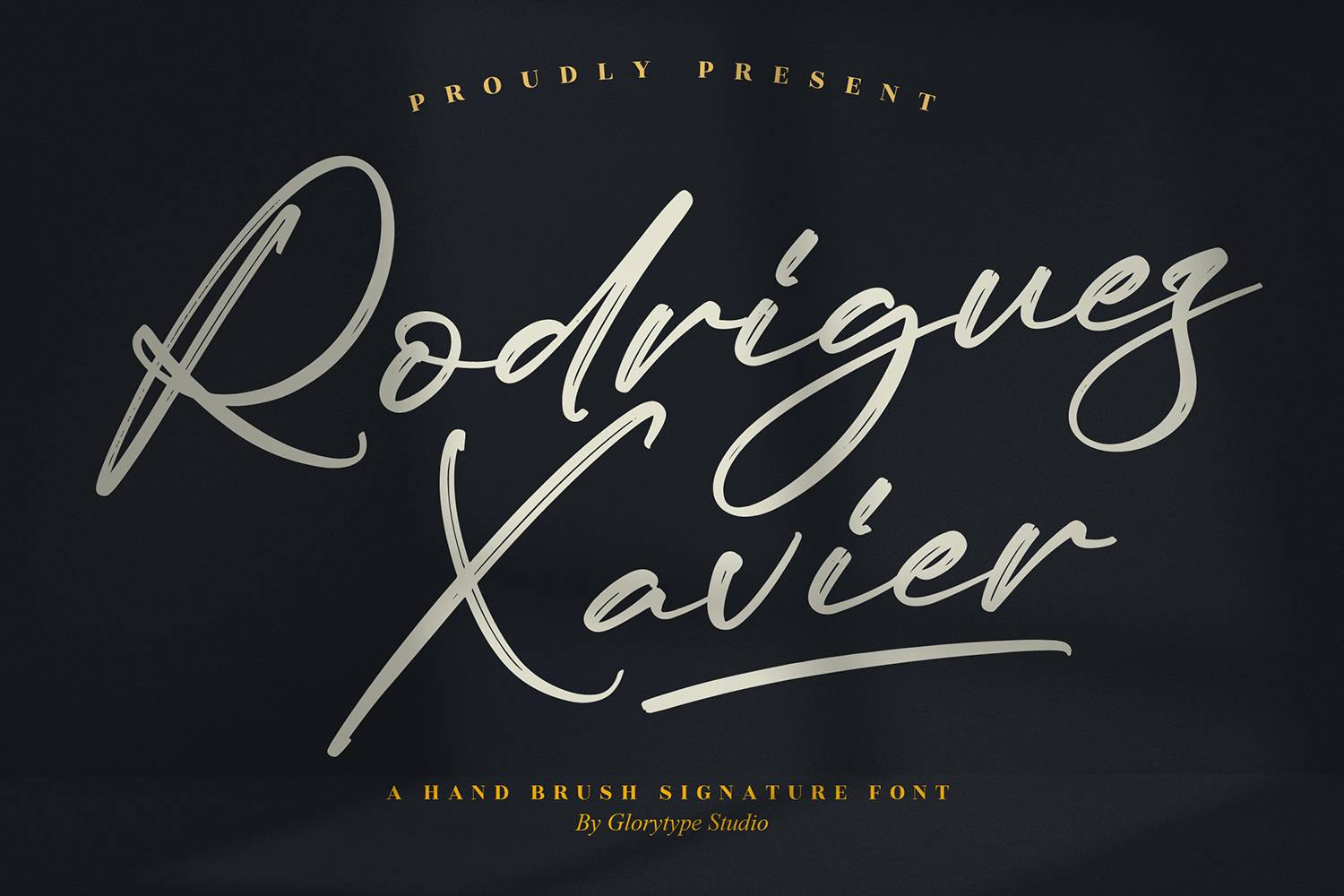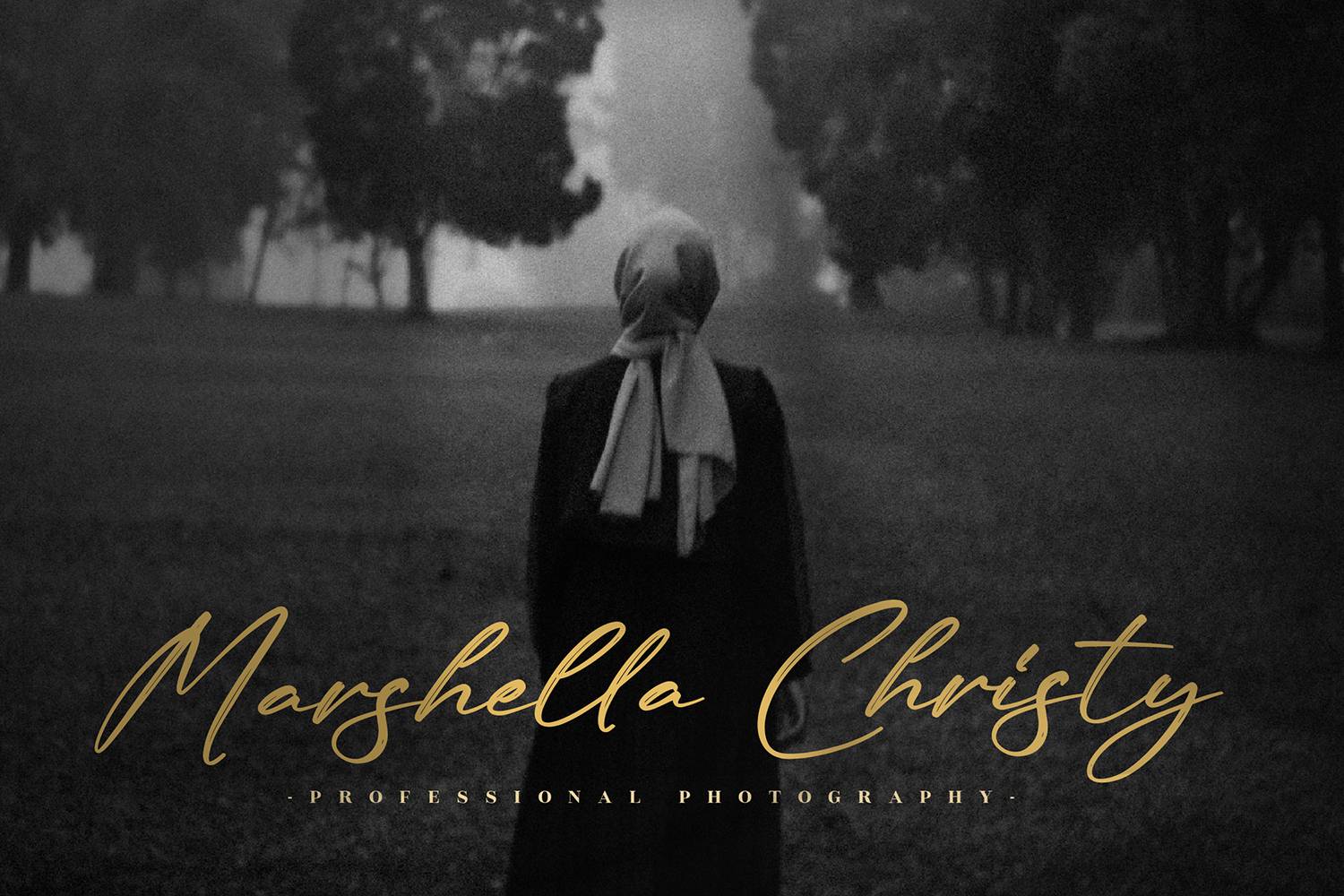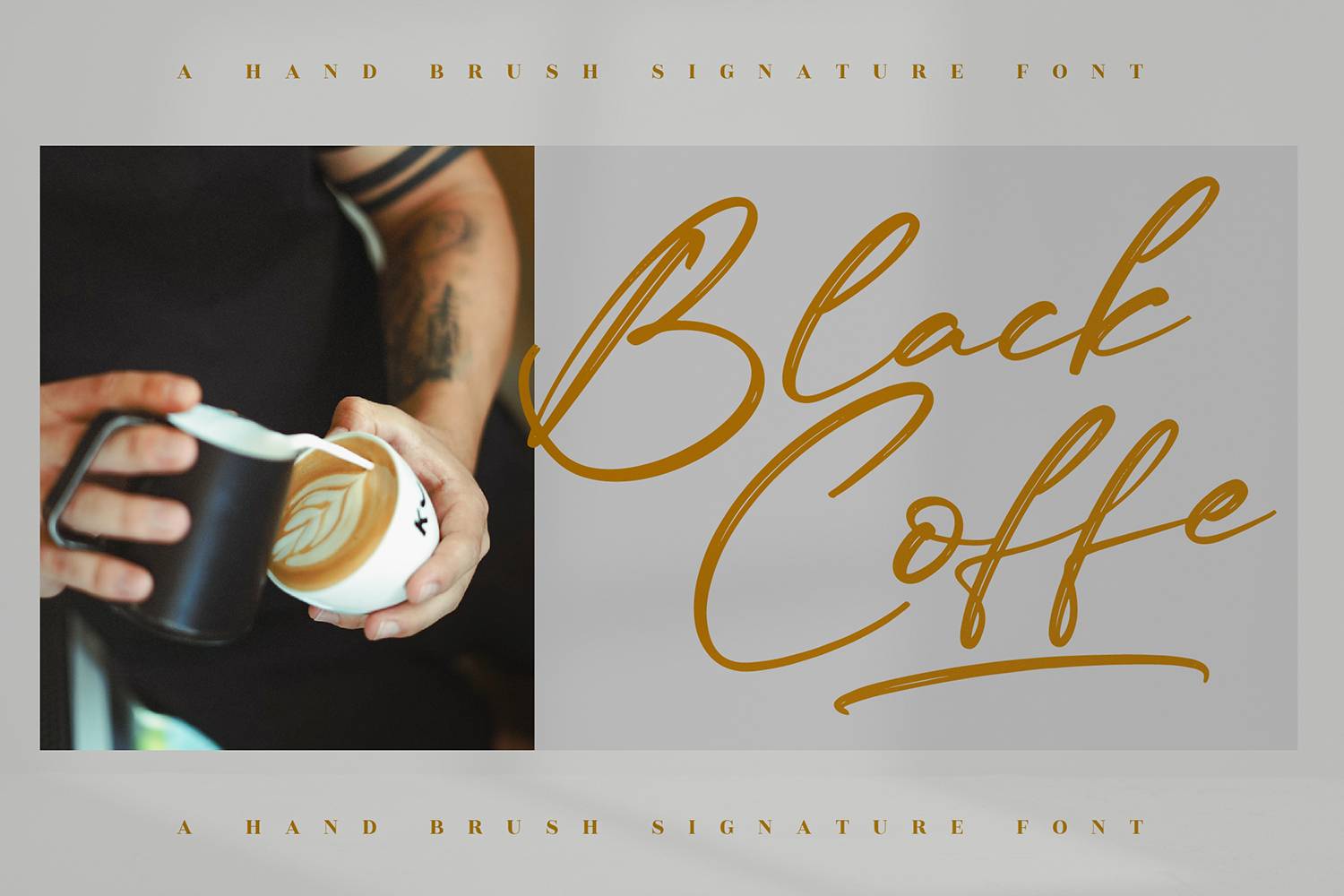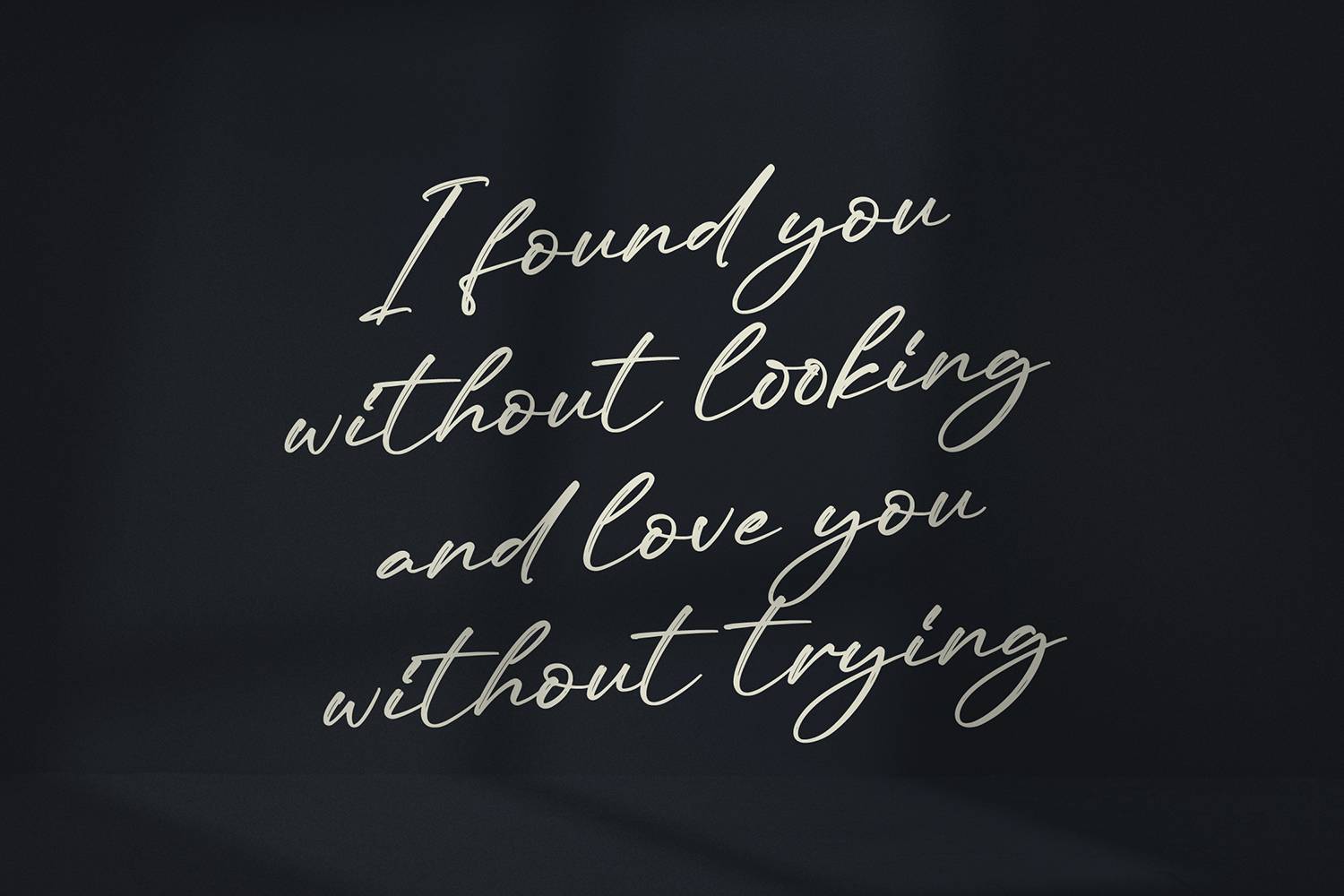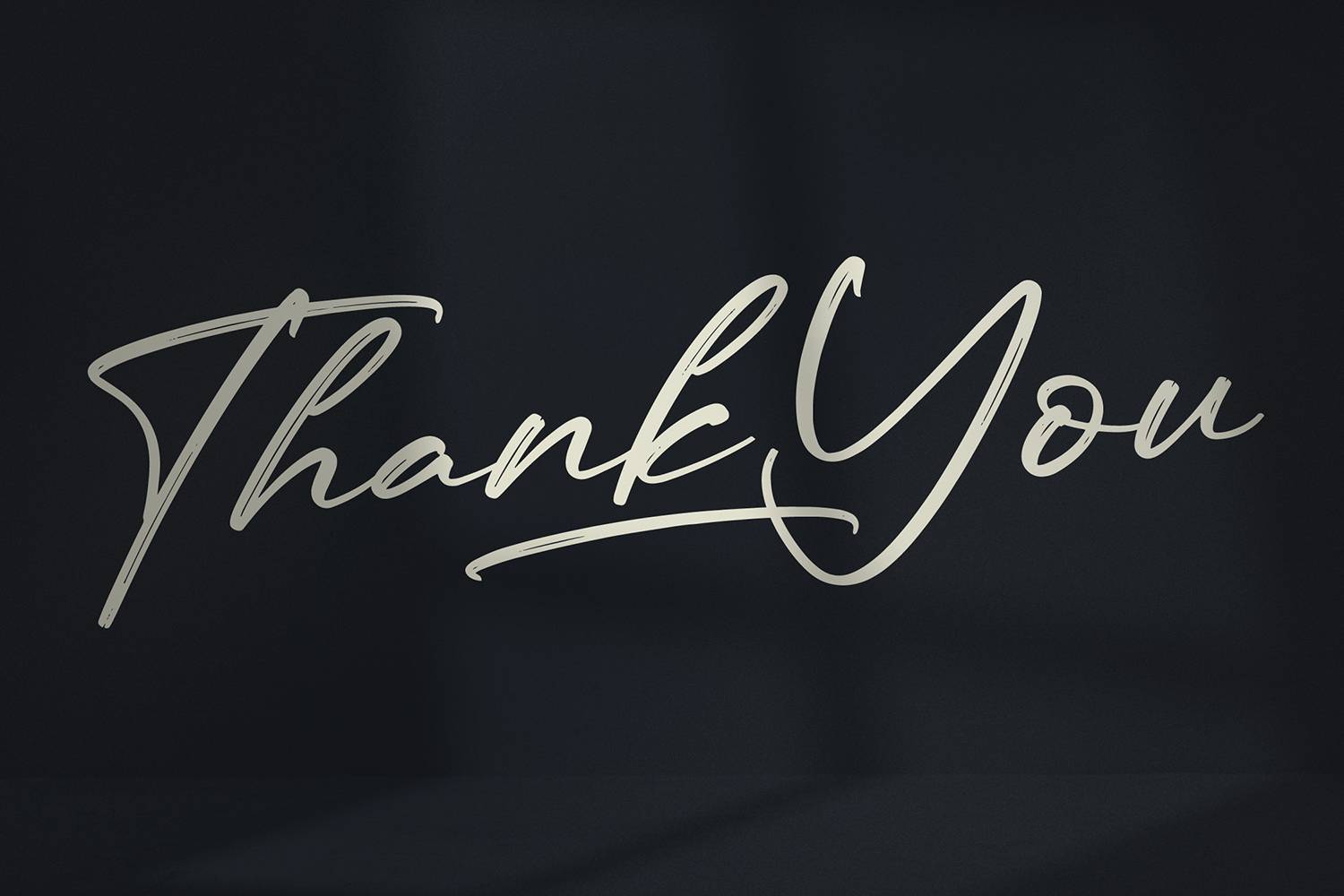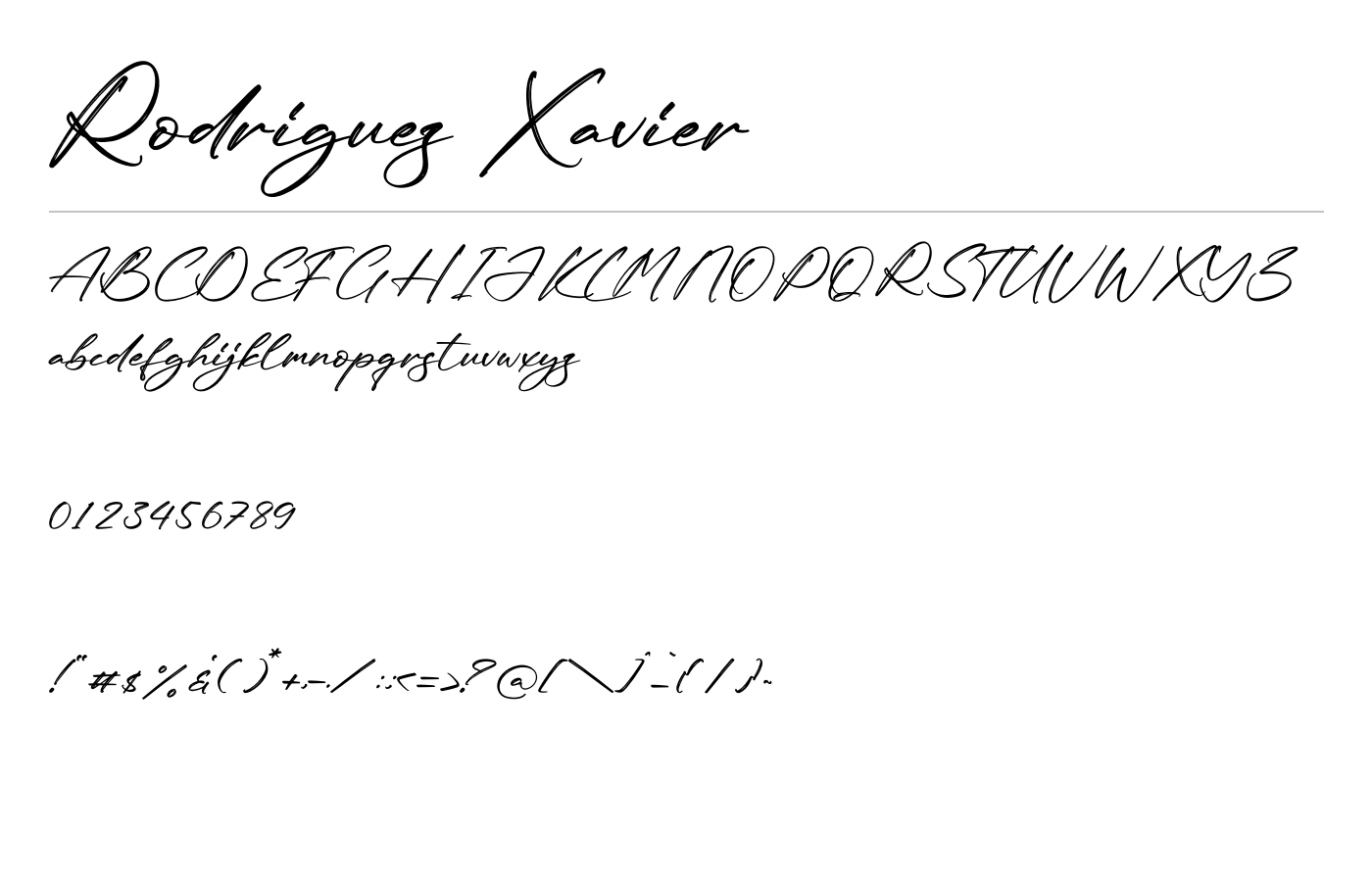
Rodriguez Xavier is a delicate and elegant script font with a natural, handwritten feel characterized by smooth, flowing strokes and fine lines. Its refined, airy letterforms and subtle variations in stroke width give it a sophisticated yet approachable personality, making it ideal for wedding invitations, luxury branding, and stylish editorial designs where a personal, graceful touch is desired.
Rodriguez Xavier Font
About Rodriguez Xavier Font
| Font family | Rodriguez Xavier Font |